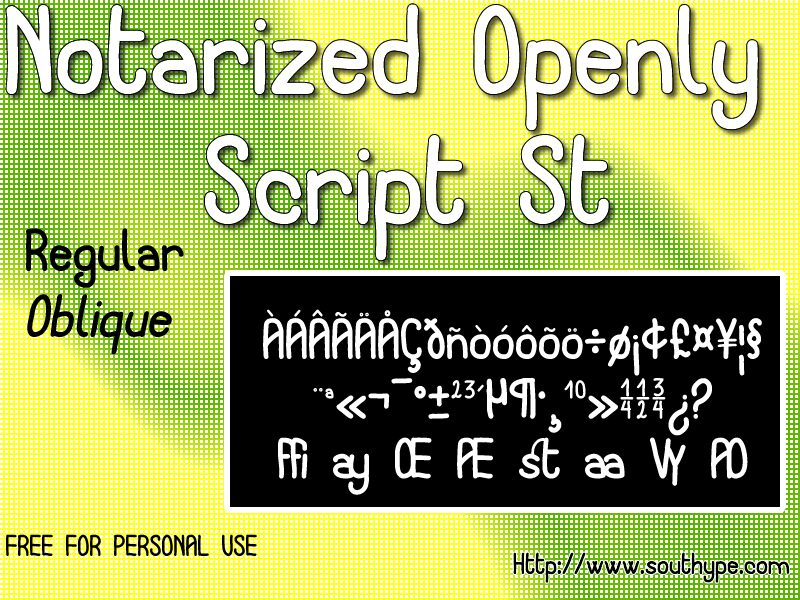
Notarized Openly Script Oblique
Notarized Openly Script is a bold and captivating handwritten font that exudes a sense of authenticity and personal expression. The condensed, oblique design lends an air of elegance and sophistication, while the script-like strokes evoke a touch of artistry and individuality. This font's striking visual appeal makes it an excellent choice for branding, editorial design, and any project seeking to convey a genuine, handcrafted aesthetic.
Its versatility extends to applications ranging from logos and headlines to wedding invitations and promotional materials, allowing designers to infuse their work with a unique and memorable flair.